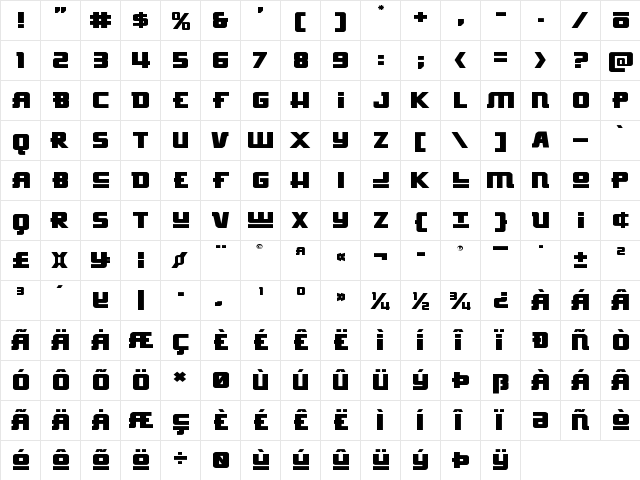
Hong Kong Hustle Expanded Font Preview
Hong Kong Hustle Expanded Expanded
Hong Kong Hustle Expanded Font Details
| Style | Expanded |
Design Context for Hong Kong Hustle Expanded Typeface
Hong Kong Hustle Expanded is a composed and adaptable typeface that performs quietly and consistently across a wide range of design contexts.